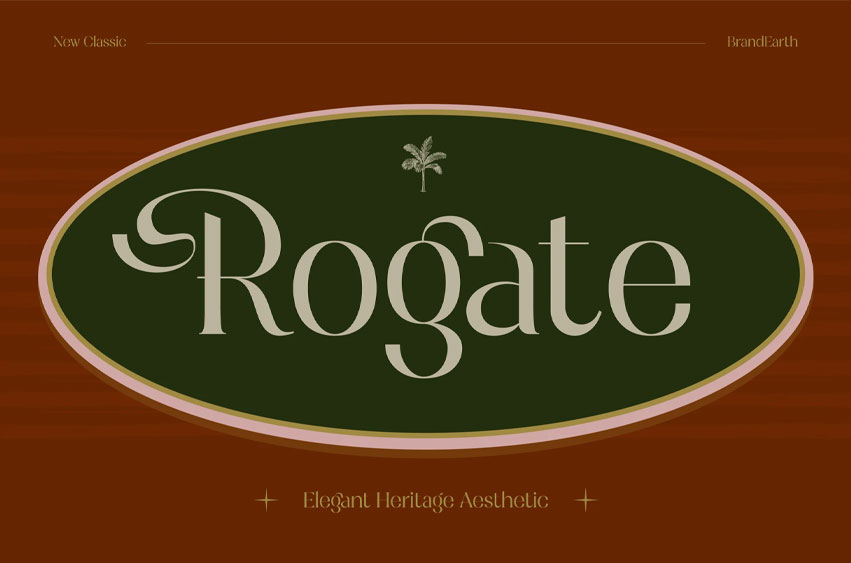
Rogate Font
Rogate Font is a refined serif typeface that blends classic heritage design with modern sophistication. With its sharp serifs, subtle curves, and timeless letterforms, Rogate carries a sense of tradition while staying versatile for contemporary use. The balanced contrast and clean proportions make it suitable for branding, editorial layouts, packaging, and luxury lifestyle design.
This font includes uppercase, lowercase, numerals, and punctuation with a stylish and professional look. Rogate’s aesthetic reflects an elegant heritage, making it ideal for projects that demand authenticity, culture, and prestige while still embracing modern design sensibilities.
Relevance and Use Cases is perfect for heritage-inspired branding, editorial headlines, luxury packaging, fashion magazines, boutique logos, cultural and lifestyle projects, wedding stationery, professional presentations, and premium brand identities.